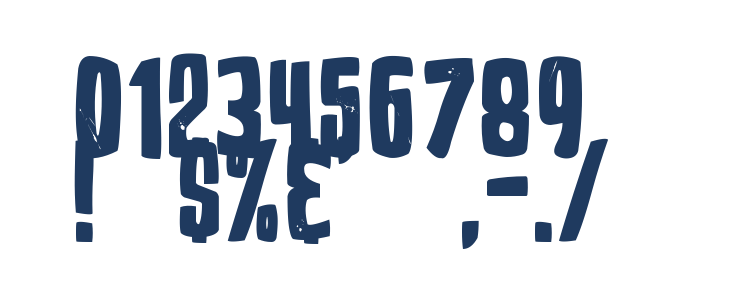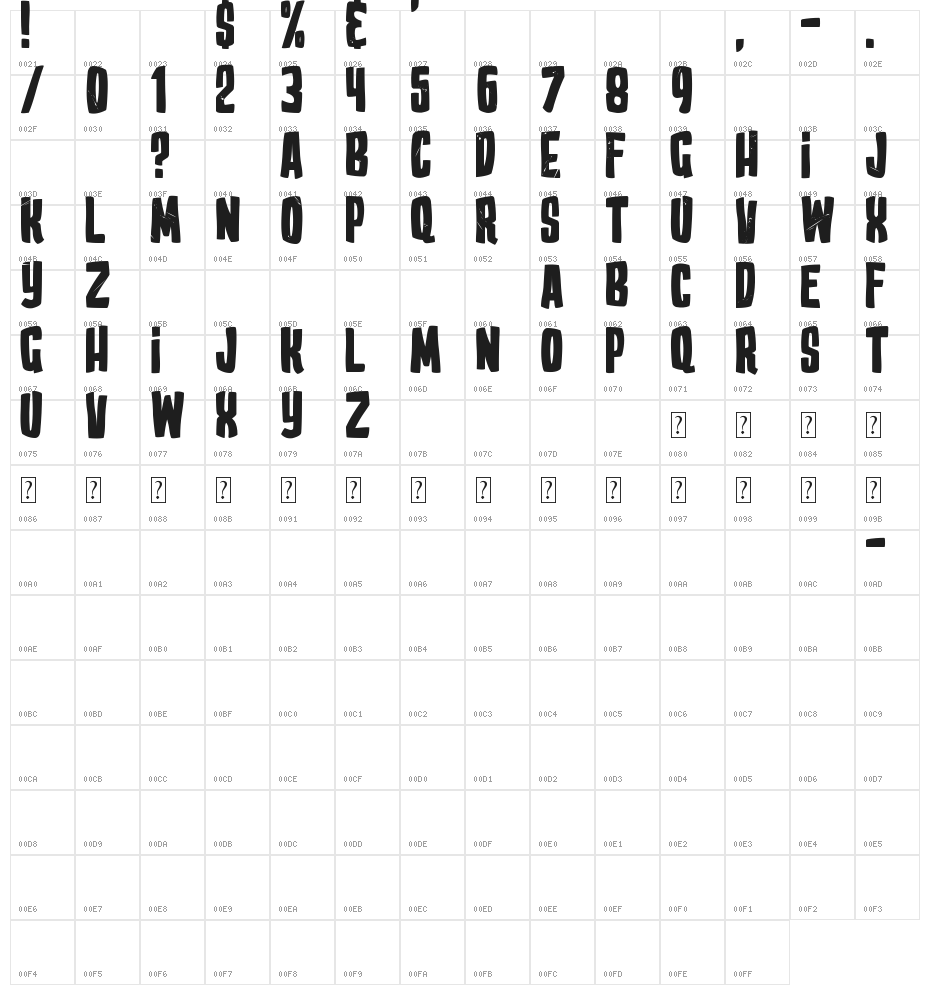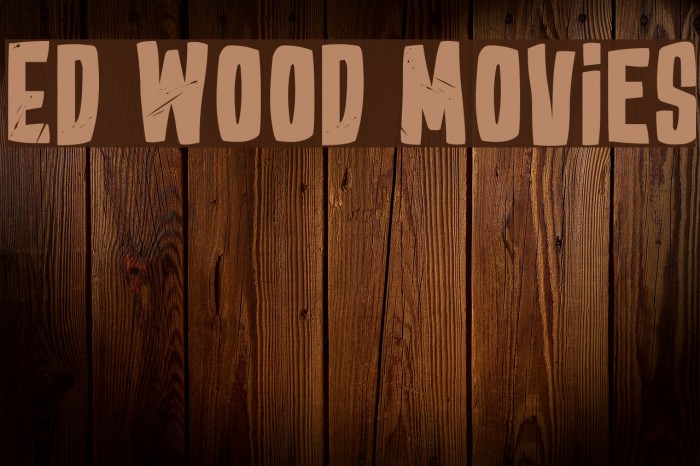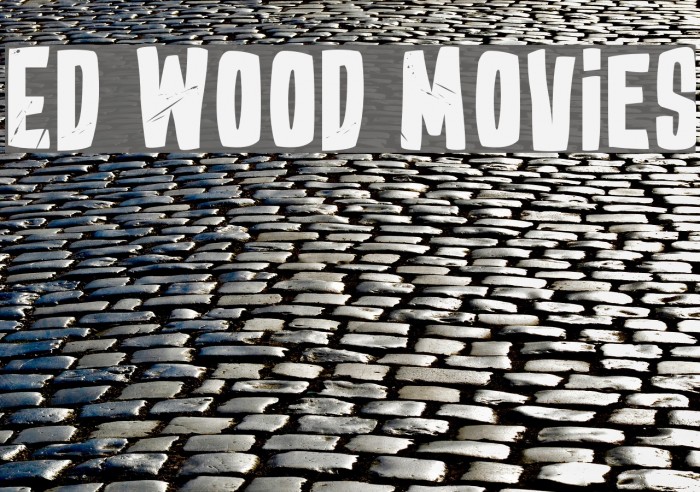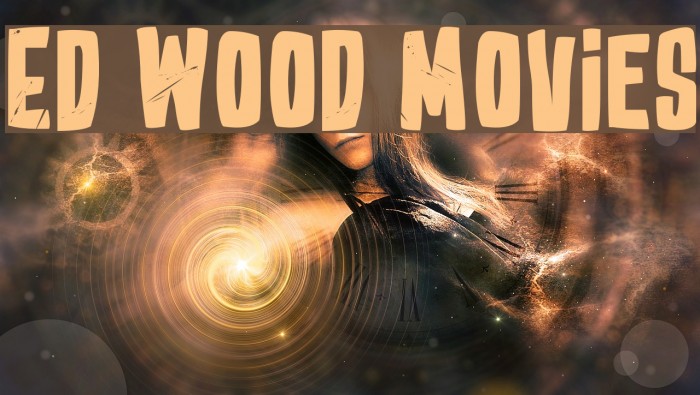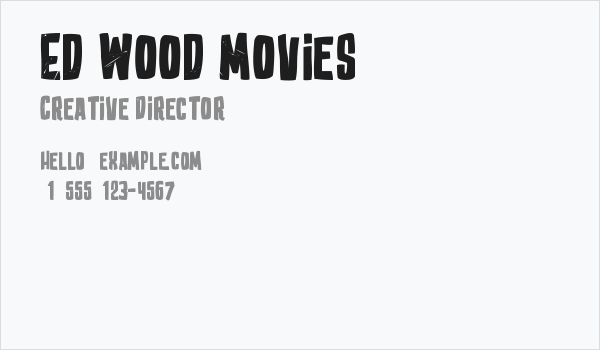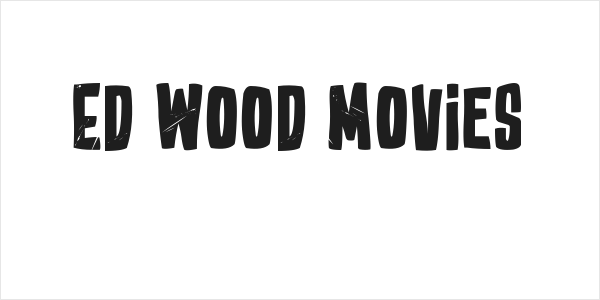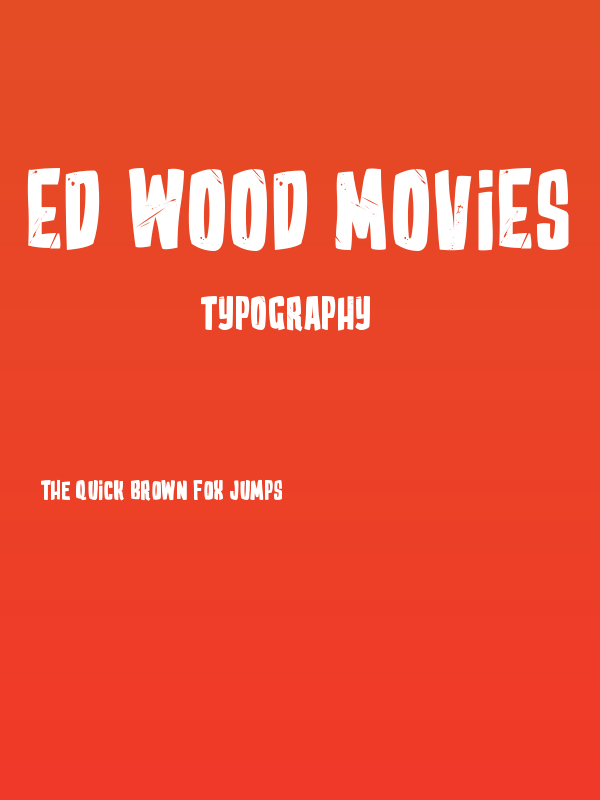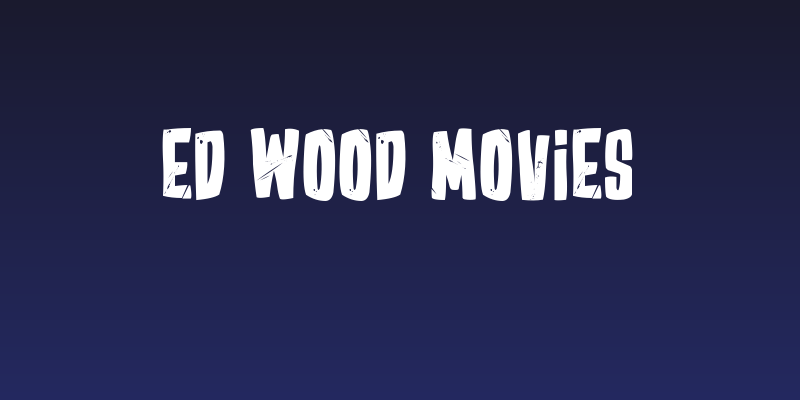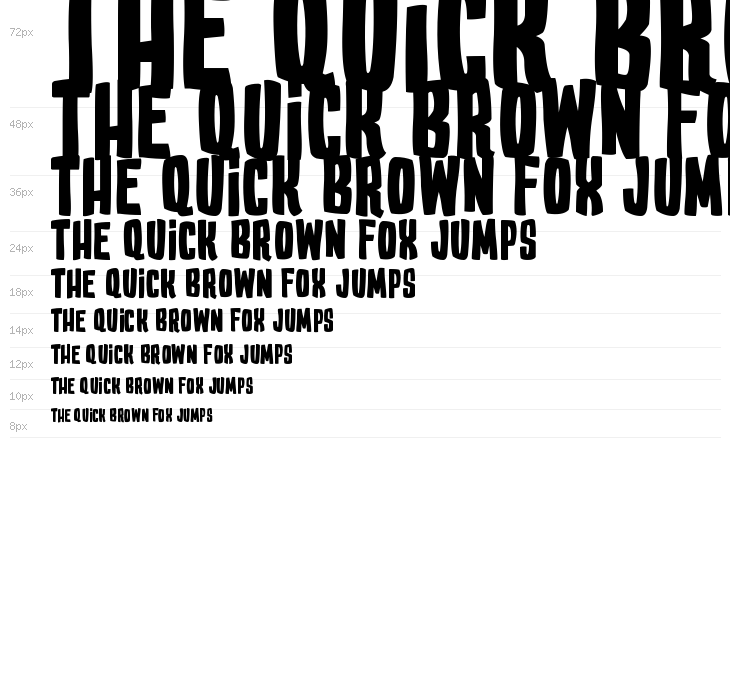
Ed Wood Movies Font
Ed Wood Movies Description
This font features a bold and distressed style, reminiscent of vintage horror movie posters. The characters are thick and uneven, with a hand-drawn appearance that adds to its quirky and retro charm. The uppercase letters are particularly striking, with exaggerated curves and angles that create a sense of movement and drama. The numbers and special characters maintain this playful, slightly chaotic aesthetic, making the font ideal for projects that require a touch of nostalgia or a dramatic flair. The distressed texture gives it an aged look, perfect for designs that aim to capture a vintage or retro vibe.
| Proposed Projects | Ideal for vintage-themed posters, horror movie titles, Halloween invitations, and retro branding projects. |